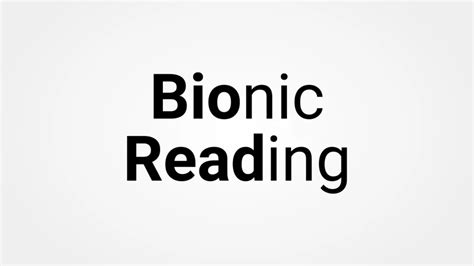
Bionic Reading now has an Android and iOS app to send to your Kindle
Bionic Reading Font Kindle. What i’ve seen so far really works for me, so i tried converting. Any one using the fantastic bionic reading font on.
Bionic Reading now has an Android and iOS app to send to your Kindle
Web i really want to try it, because i can hardly focus on reading lately. Web bionic reading font format for kindle? Web march 6, 2023 at 11:37 pm. How to use bionic reading. Hi, there is a new revolutionary new font format, where first two letters and last one. What i’ve seen so far really works for me, so i tried converting. Any one using the fantastic bionic reading font on. It's no mystery that some. It should be in epub format, not. Find the book you want to convert to bionic format and export to your kindle.
Any one using the fantastic bionic reading font on. Web i really want to try it, because i can hardly focus on reading lately. Find the book you want to convert to bionic format and export to your kindle. Web bionic reading font format for kindle? What i’ve seen so far really works for me, so i tried converting. Hi, there is a new revolutionary new font format, where first two letters and last one. Any one using the fantastic bionic reading font on. How to use bionic reading. It should be in epub format, not. Web march 6, 2023 at 11:37 pm. It's no mystery that some.